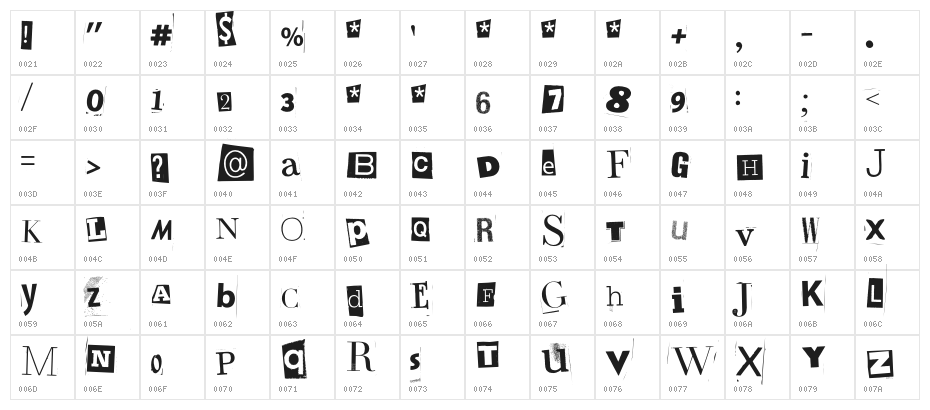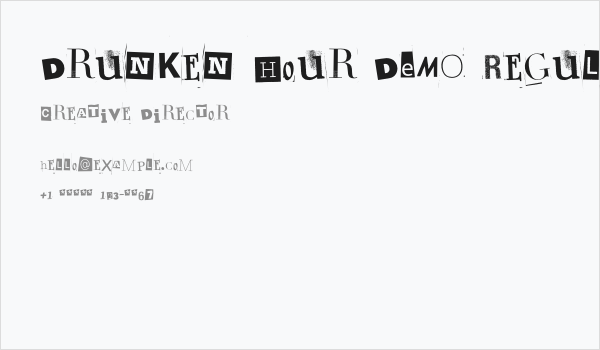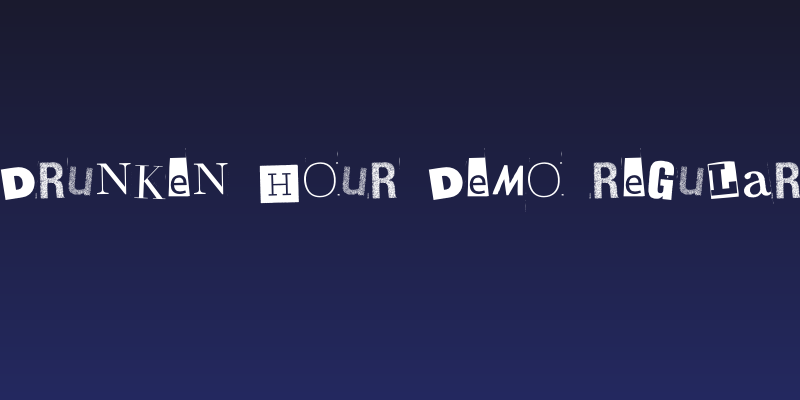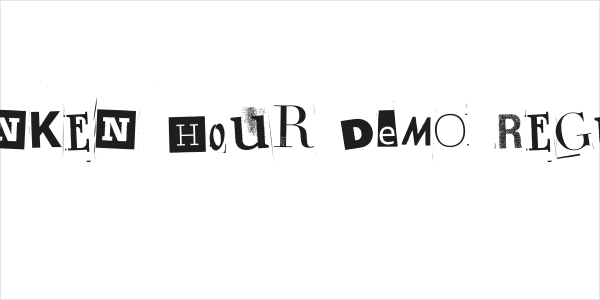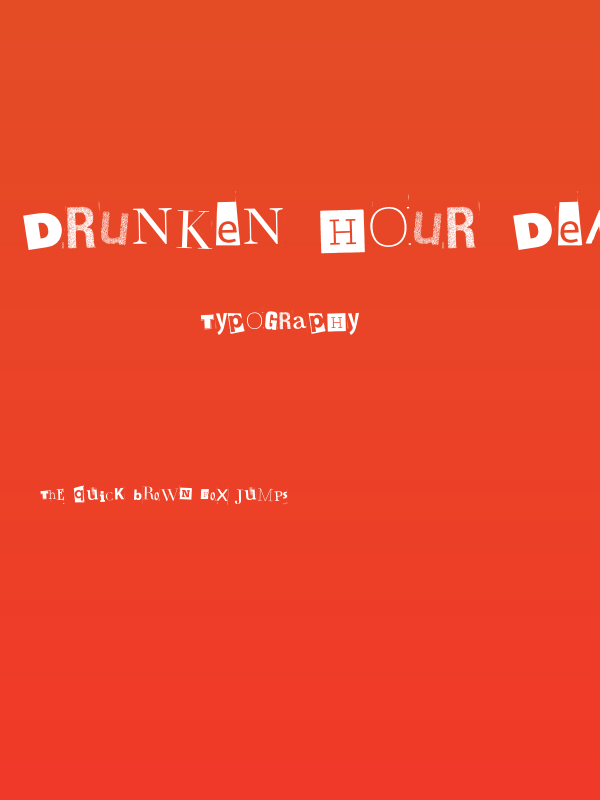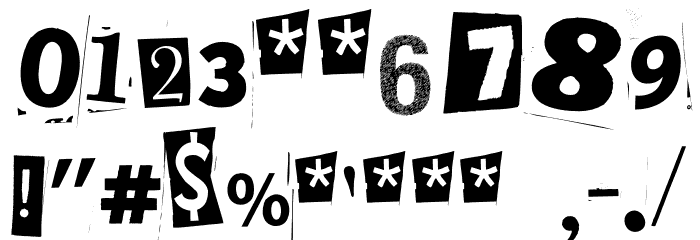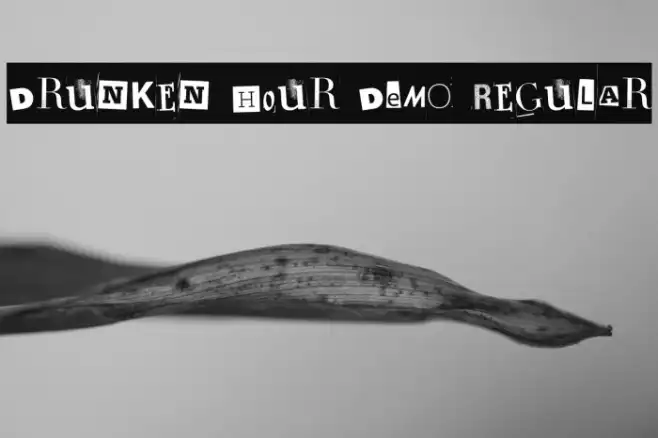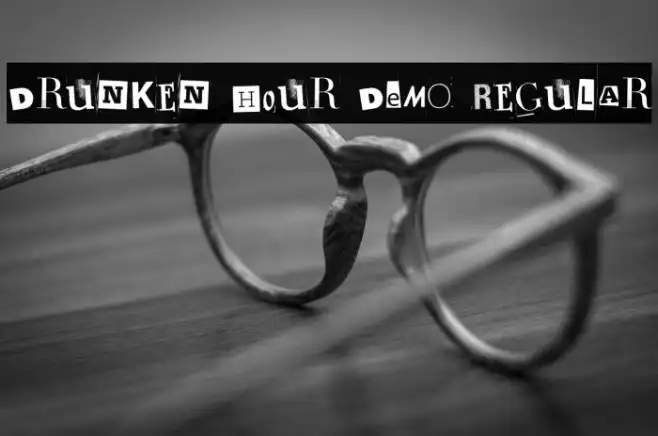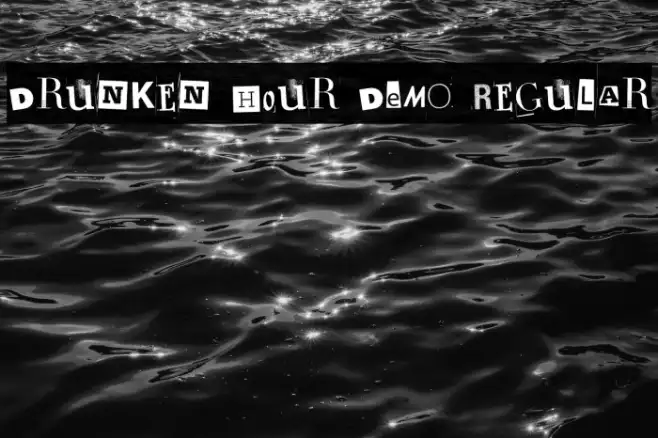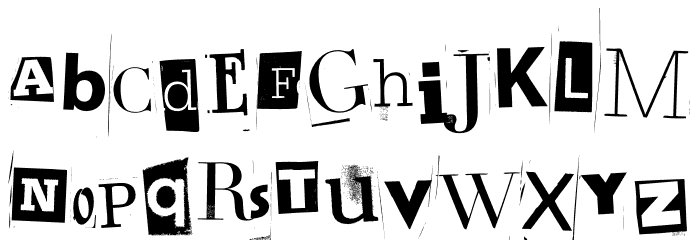
Drunken Hour DEMO Regular Font
Drunken Hour DEMO Regular Description
This font features a playful and eclectic style, reminiscent of cut-out letters from magazines or newspapers. Each character appears to be individually crafted, with varying sizes, orientations, and styles, creating a dynamic and chaotic appearance. The letters are a mix of bold and regular weights, with some characters enclosed in boxes or with textured backgrounds, adding to the ransom note aesthetic. The font is highly decorative and unconventional, making it stand out with its unique and artistic flair.
| Use Case | Headlines, Posters, Artistic Designs |
| Proposed Projects | Ideal for creative projects such as posters, album covers, or any design requiring a bold, artistic statement. |